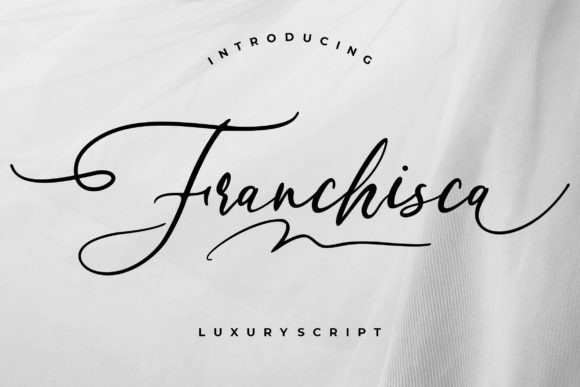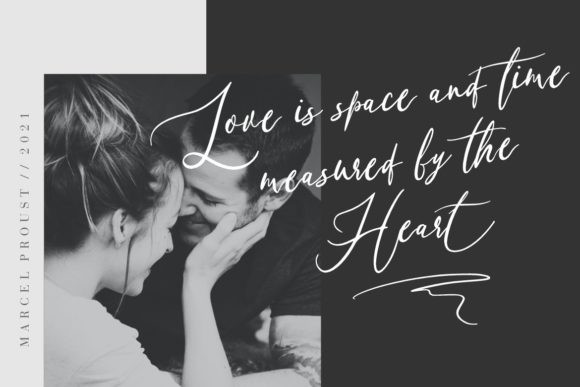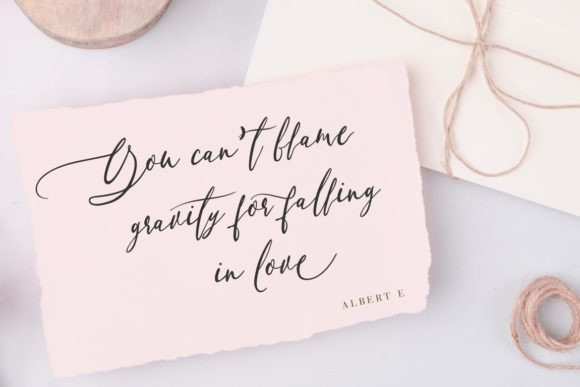
Franchisca Font
Franchisca is a luxury script font that looks very classy, modern and elegant. This font is perfect for branding projects, logos, wedding designs, and any other projects that need a customized taste. Franchisca is PUA encoded which means you can access all of the glyphs and swashes with ease!